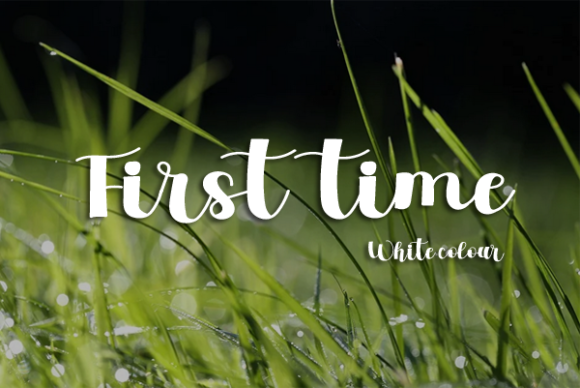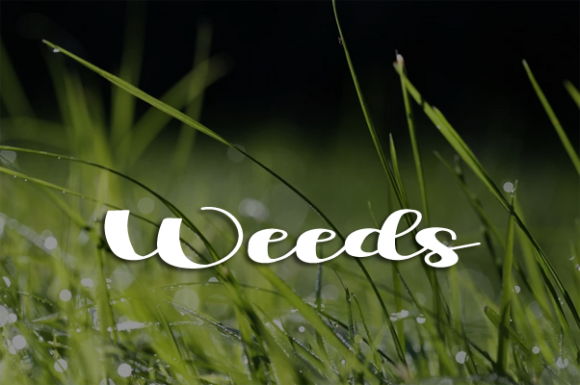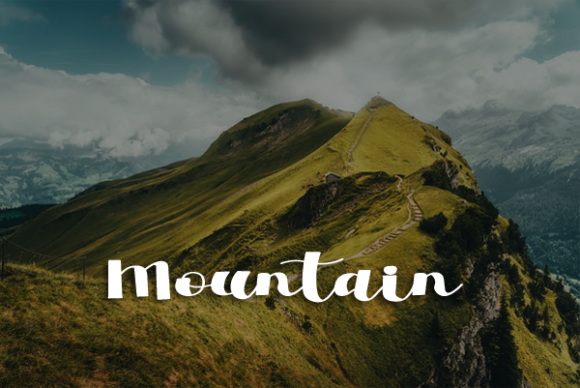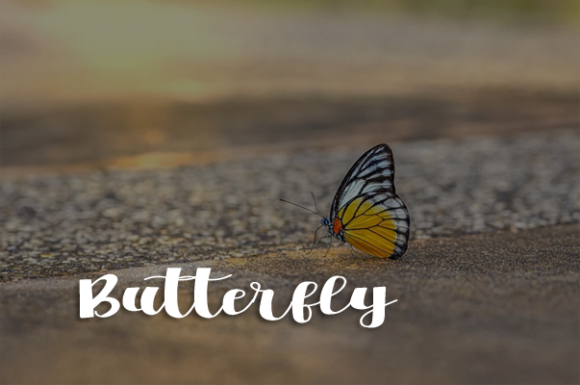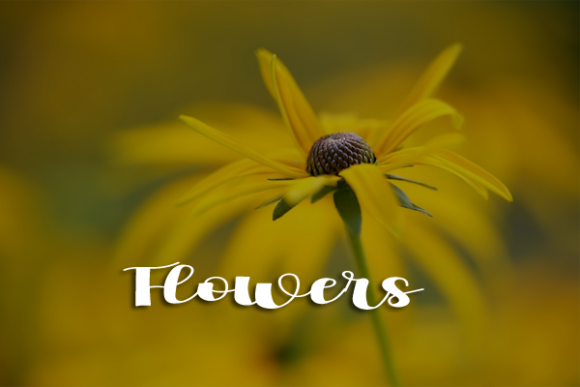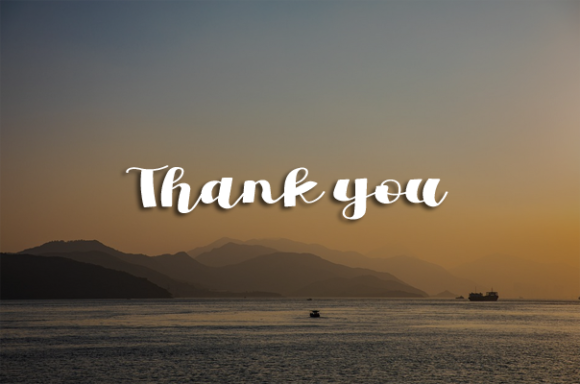
Introducing First Time Font: Elevate Your Designs with Elegance and Sophistication
Are you a designer or crafter looking for a font that exudes class, elegance, and modernity? Look no further than First Time Font, a beautiful and refined script font that is sure to take your designs to the next level. With its sophisticated and luxurious feel, First Time Font is perfect for a wide range of applications, from logos and branding to invitations, stationery, wedding designs, social media posts, and more.
The Perfect Blend of Elegance and Modernity
First Time Font boasts a unique blend of traditional elegance and modern sophistication, making it an ideal choice for designers and crafters who want to create stunning visual content. Its refined script style features flowing lines, intricate details, and a sense of luxury that is sure to impress. Whether you’re designing a logo, creating a brand identity, or crafting a beautiful invitation, First Time Font is the perfect choice.
One of the best things about First Time Font is its versatility. Its elegant and modern design makes it suitable for a wide range of applications, including:
- Invitations and Stationery: Add a touch of elegance to your invitations, greeting cards, and stationery with First Time Font.
- Wedding Designs: Make your wedding designs truly unforgettable with a beautiful and refined script font.
- Social Media Posts: Elevate your social media presence with stunning visual content that showcases your brand’s style and personality.
- And More: The possibilities are endless with First Time Font. Use it for packaging, advertising, and any other design project that requires a touch of elegance and sophistication.
Why Choose First Time Font?
So, why should you choose First Time Font for your design projects? Here are just a few reasons:
- Unique and Exclusive: First Time Font is a one-of-a-kind script font that will set your designs apart from the rest.
- Elegant and Refined: Its sophisticated design makes it perfect for high-end branding, luxury products, and special occasions.
- Modern and Fresh: First Time Font has a modern feel that will keep your designs looking fresh and up-to-date.
Tips for Using First Time Font
To get the most out of First Time Font, here are a few tips to keep in mind:
- Pair it with a Sans-Serif Font: Pair First Time Font with a clean sans-serif font to create a beautiful contrast that adds visual interest to your designs.
- Experiment with Colors: First Time Font looks stunning in a variety of colors, so don’t be afraid to experiment and find the perfect hue for your design.
- Use it for Headlines and Titles: First Time Font is perfect for headlines and titles, where its elegant and refined design can really shine.
In conclusion, First Time Font is a beautiful and refined script font that is sure to elevate your designs to new heights. With its elegant and modern design, versatility, and ease of use, it’s the perfect choice for designers and crafters who want to create stunning visual content. Whether you’re designing a logo, creating a brand identity, or crafting a beautiful invitation, First Time Font is the perfect choice. So why wait? Try First Time Font today and see the difference it can make in your designs!